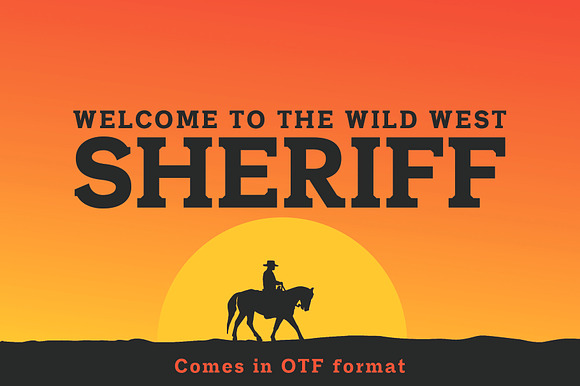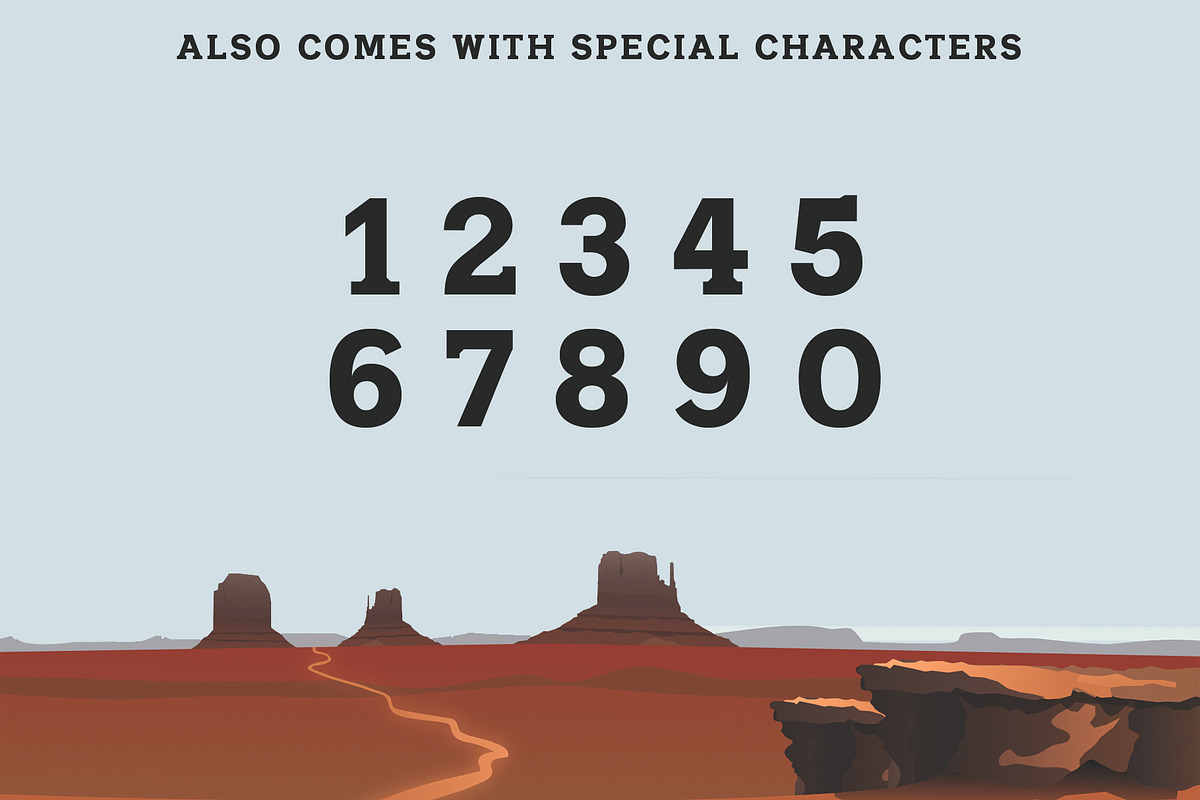
SHERIFF: A Font of the Wild West
A typeface for those who love the wild west. It's absolutely perfect for logos, titles, invitations, and more! SHERIFF is a perfect font to have in your design arsenal!
SHERIFF: A Font of the Wild West by Dene Studios fits naturally into Branding, posters, packaging, typography.